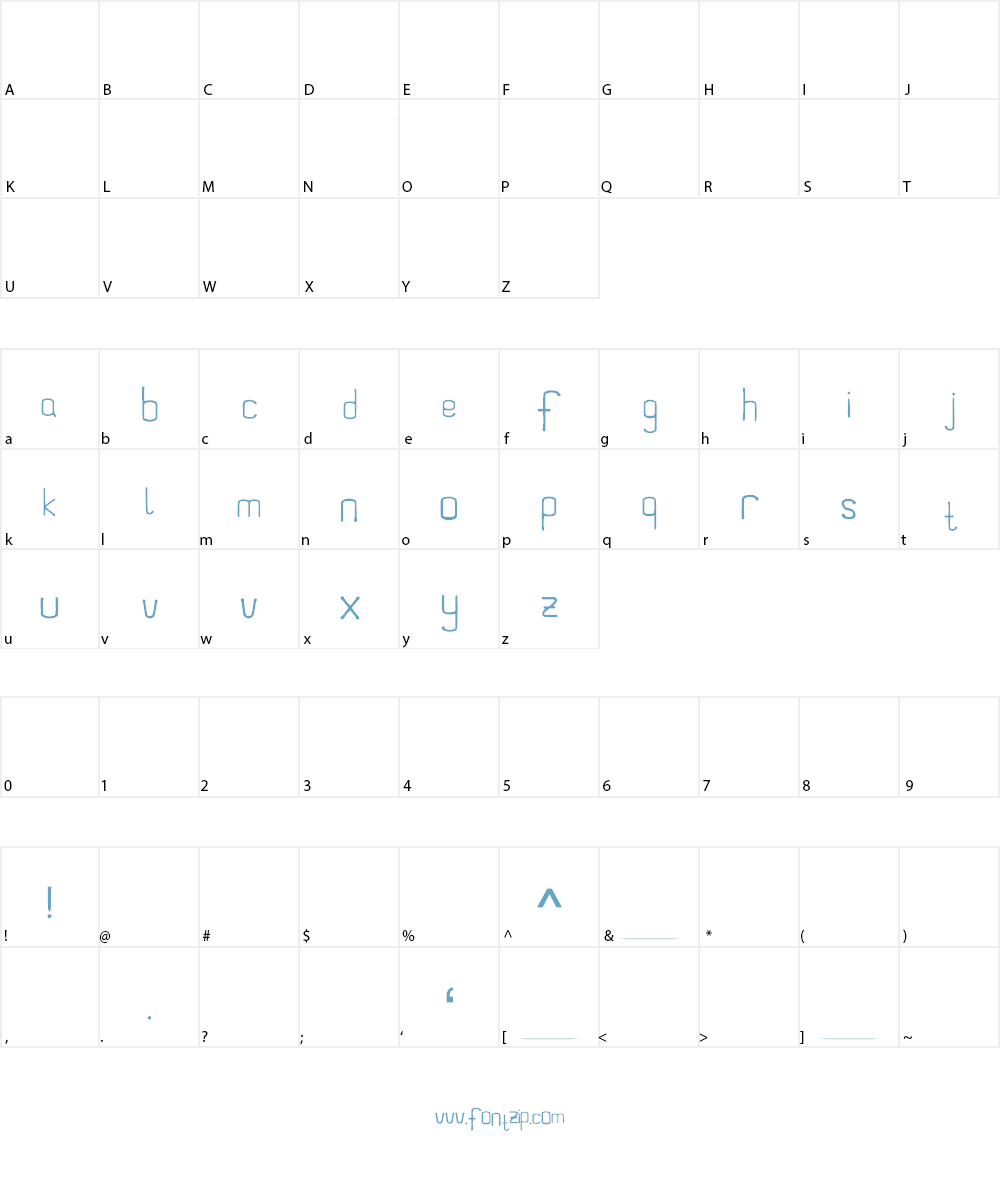
This is a font with a circular serif. It is lots of fun to type with because the letters are all different sizes, while keeping it easy to read. I was inspired to make it because it is a very fun font and it is neat and welcoming. Thank you!